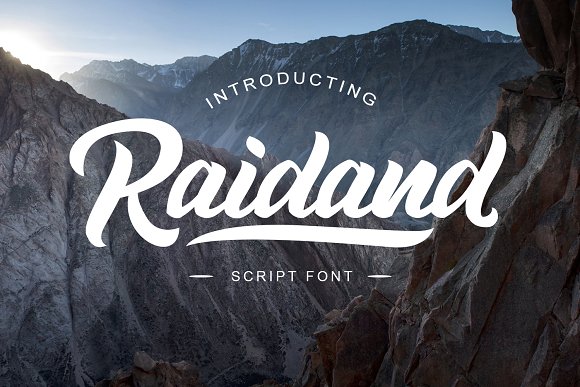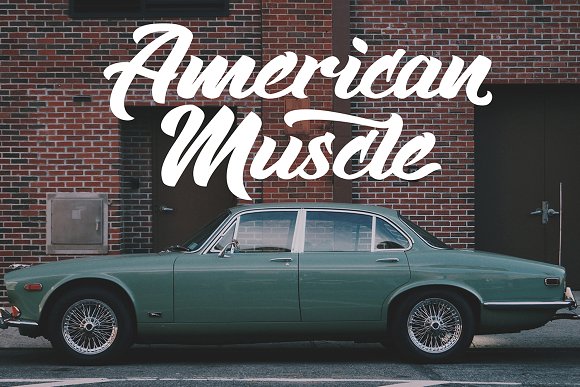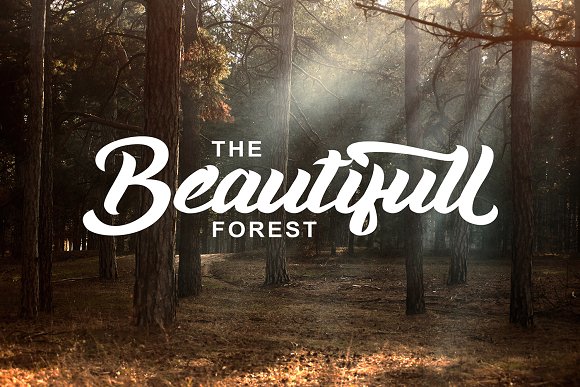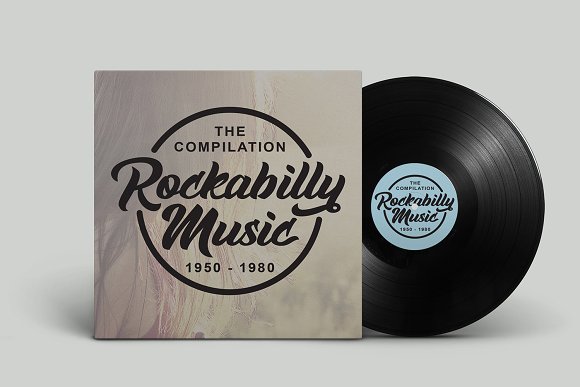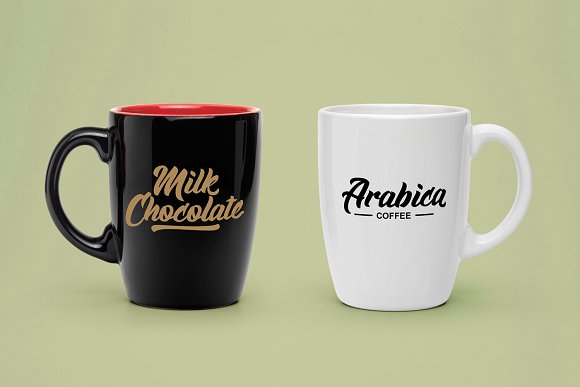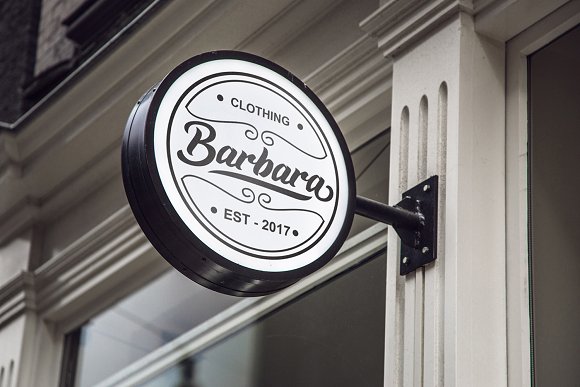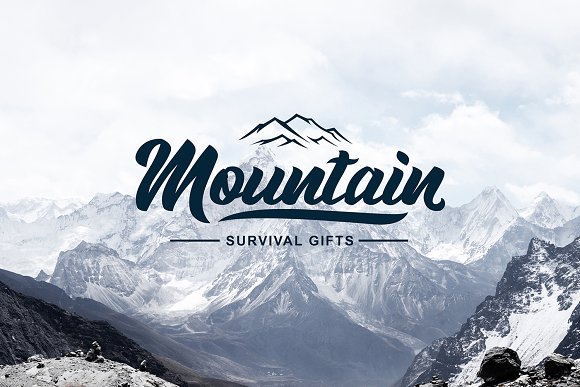
Raidand Script Font
Raidand is a brush script font with clean style. Usefull as a logotype, badge, dropcap, packaging, headline, poster, artwork, t-shirt and etc.